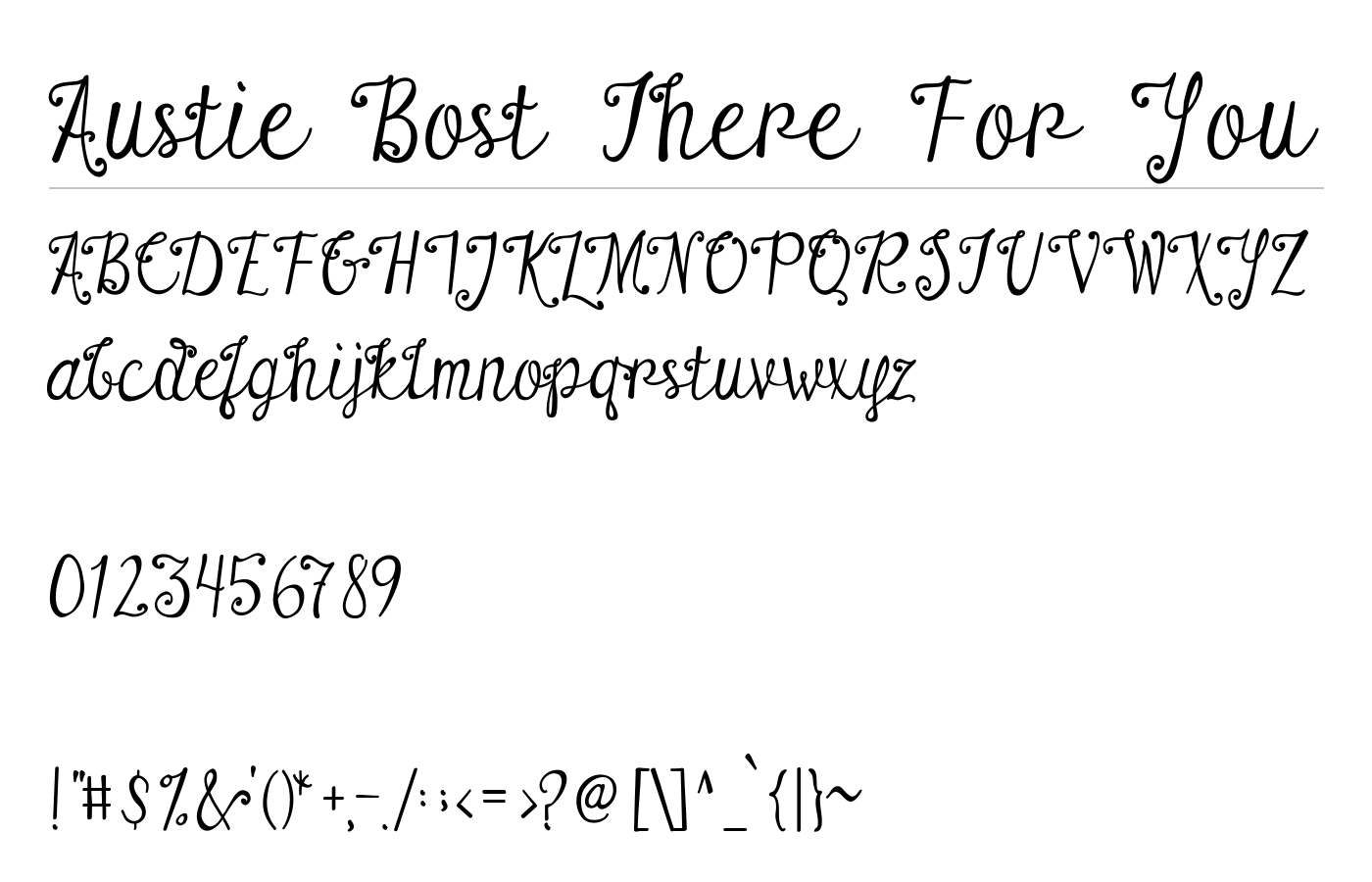
Austie Bost There For You is a charming, handwritten script font with whimsical curls and a delicate, slightly playful feel. Its light weight and airy letterforms make it perfect for invitations, greeting cards, and branding that seeks a personal, friendly touch. This font works beautifully in designs that want to convey warmth, creativity, and a sense of approachability.
Austie Bost There For You Font
About Austie Bost There For You Font
| Font family | Austie Bost There For You Font |
| Designer | Austin Owens |